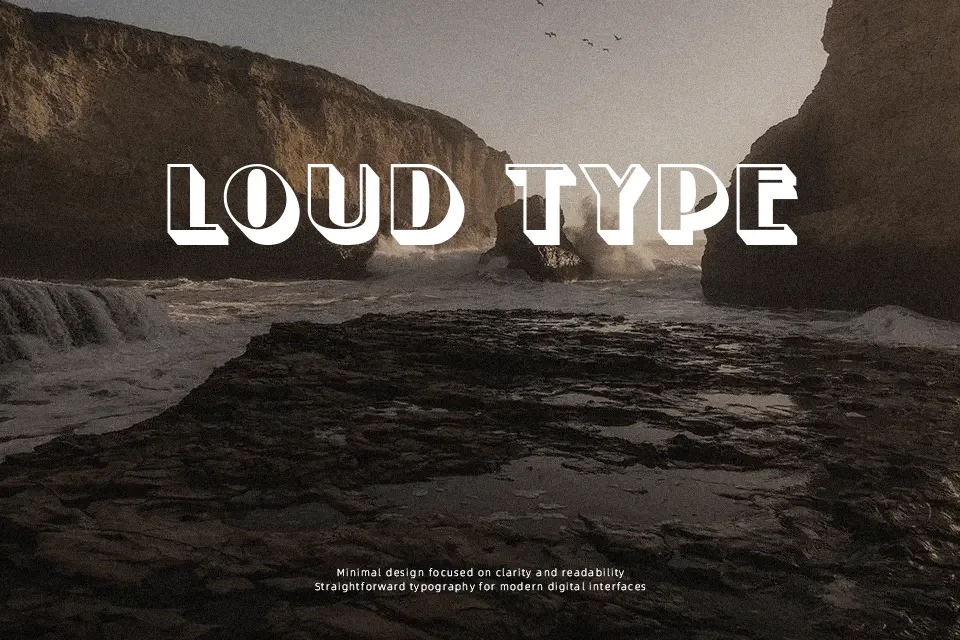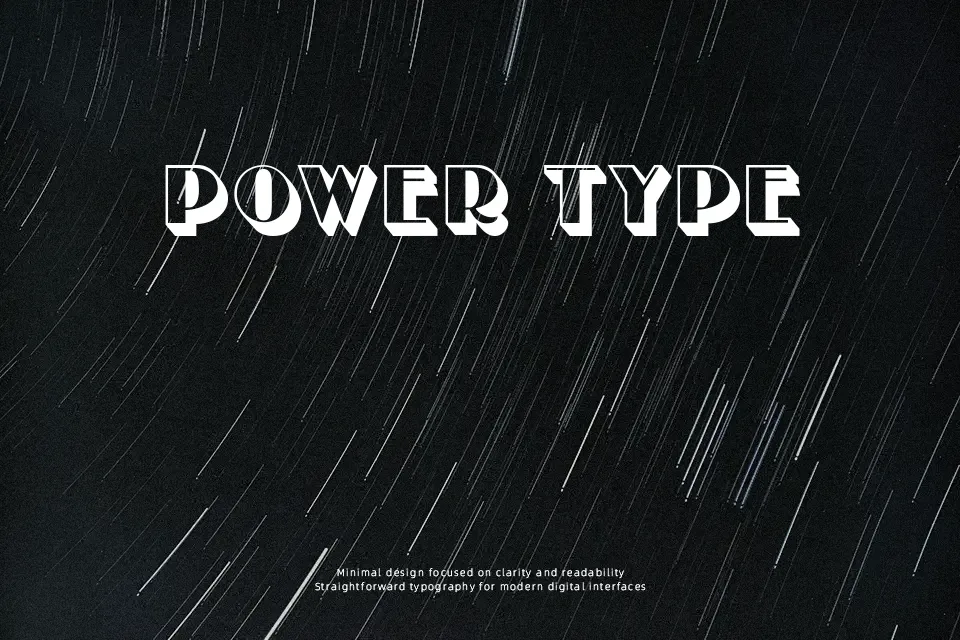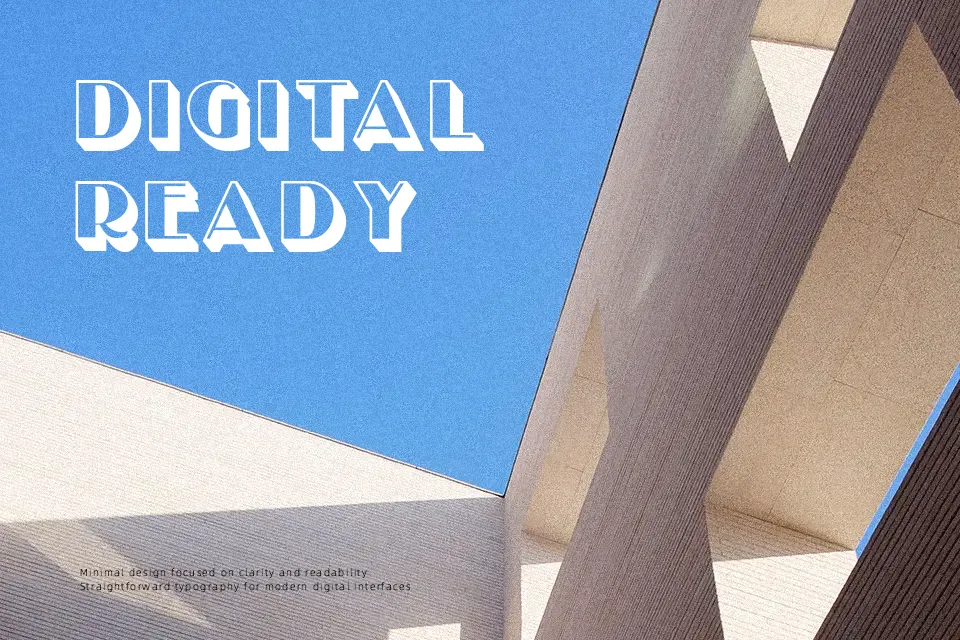
Uncle Bob MF Font
Designed by Richard William Mueller
Uncle Bob MF Font is a decorative display typeface featuring heavy geometric shapes, high visual weight, and an integrated drop shadow effect. The letterforms display balanced proportions with solid fills offset by hard-edged dimensional shadows, producing an unmistakable retro aesthetic. Character spacing remains relatively open, allowing individual glyphs to stand out clearly in larger headlines, event posters, and bold merchandise graphics. However, the prominent shading and heavy silhouette make the typeface unsuitable for continuous body copy or small captions, where intricate details easily blend together.
Best For: vintage event posters, retro signage, streetwear apparel graphics, bold packaging headers
Not Ideal For: continuous reading, mobile UI body text, dense editorial layouts, small table labels
Perfect for headline, logo, and packaging, with a bold and decorative style.